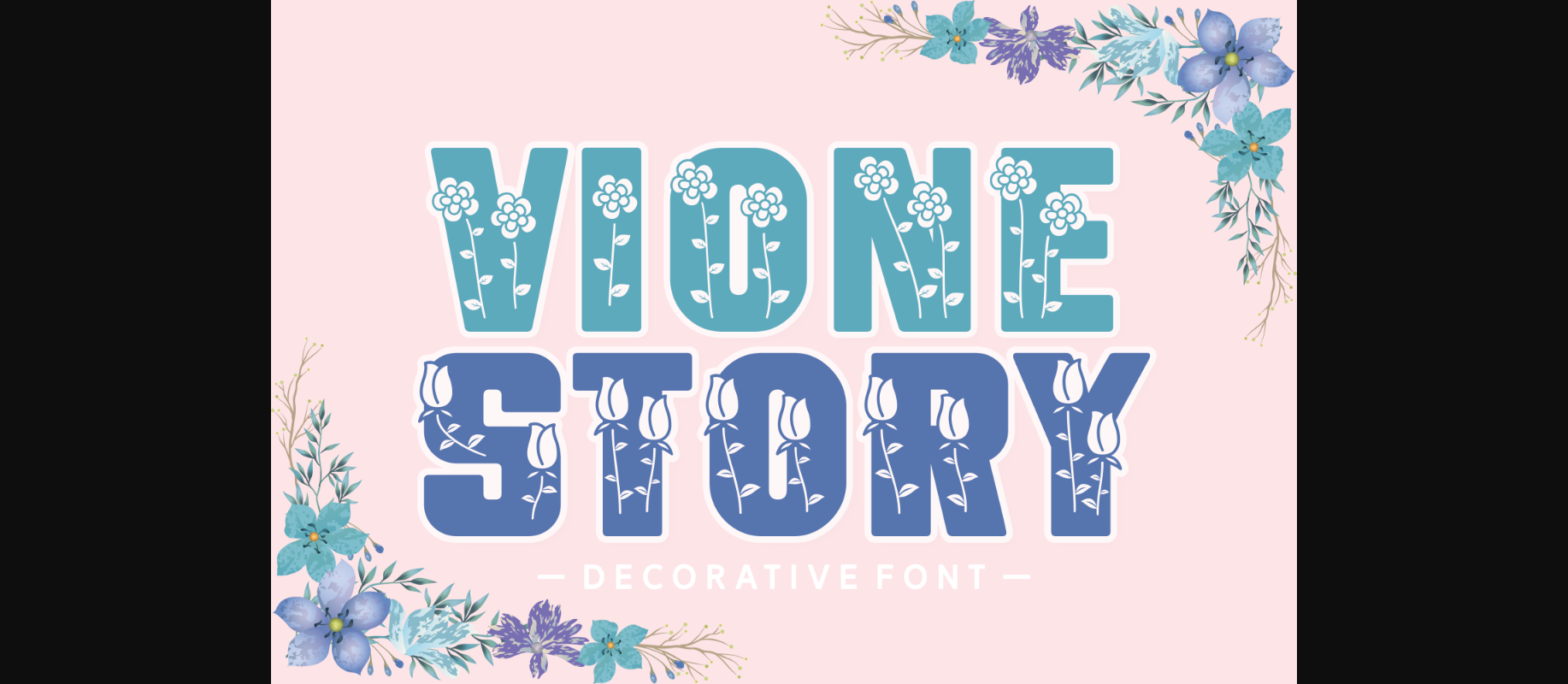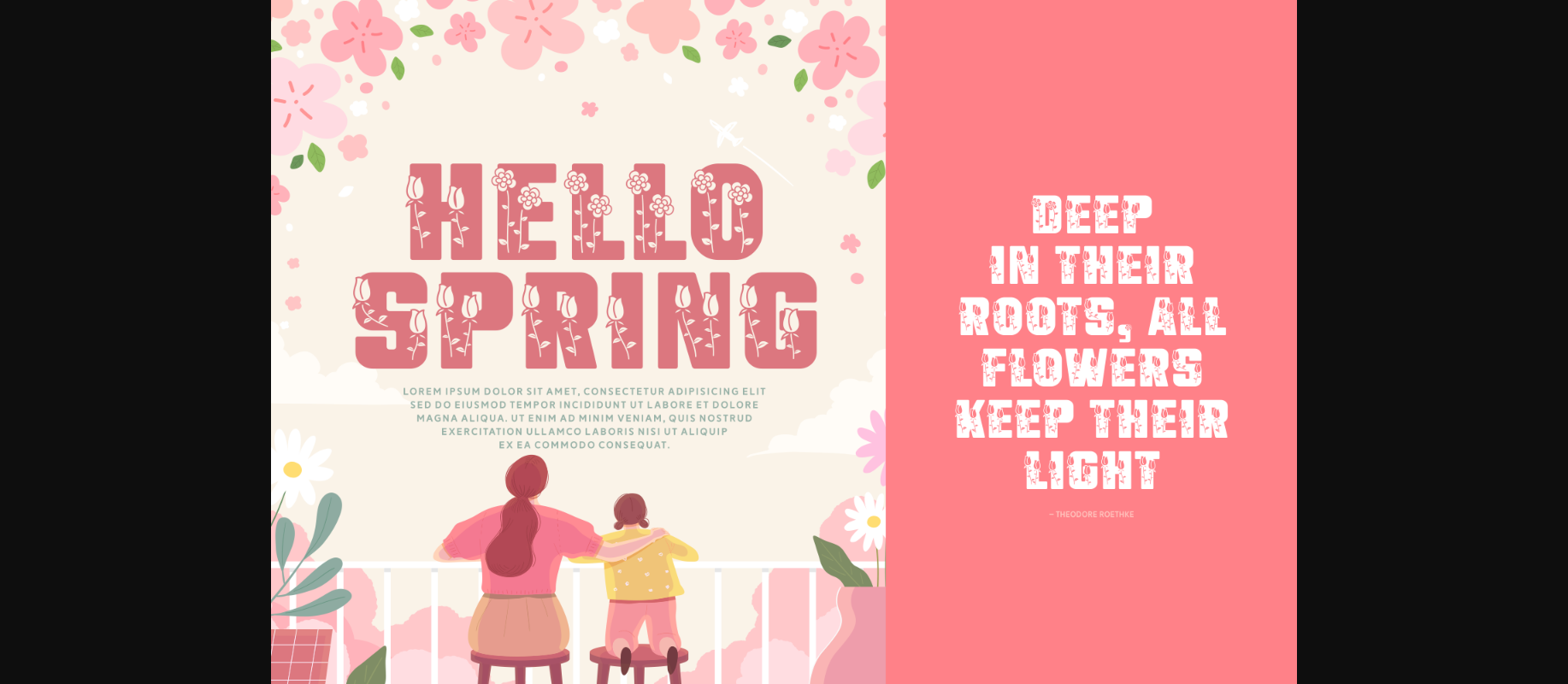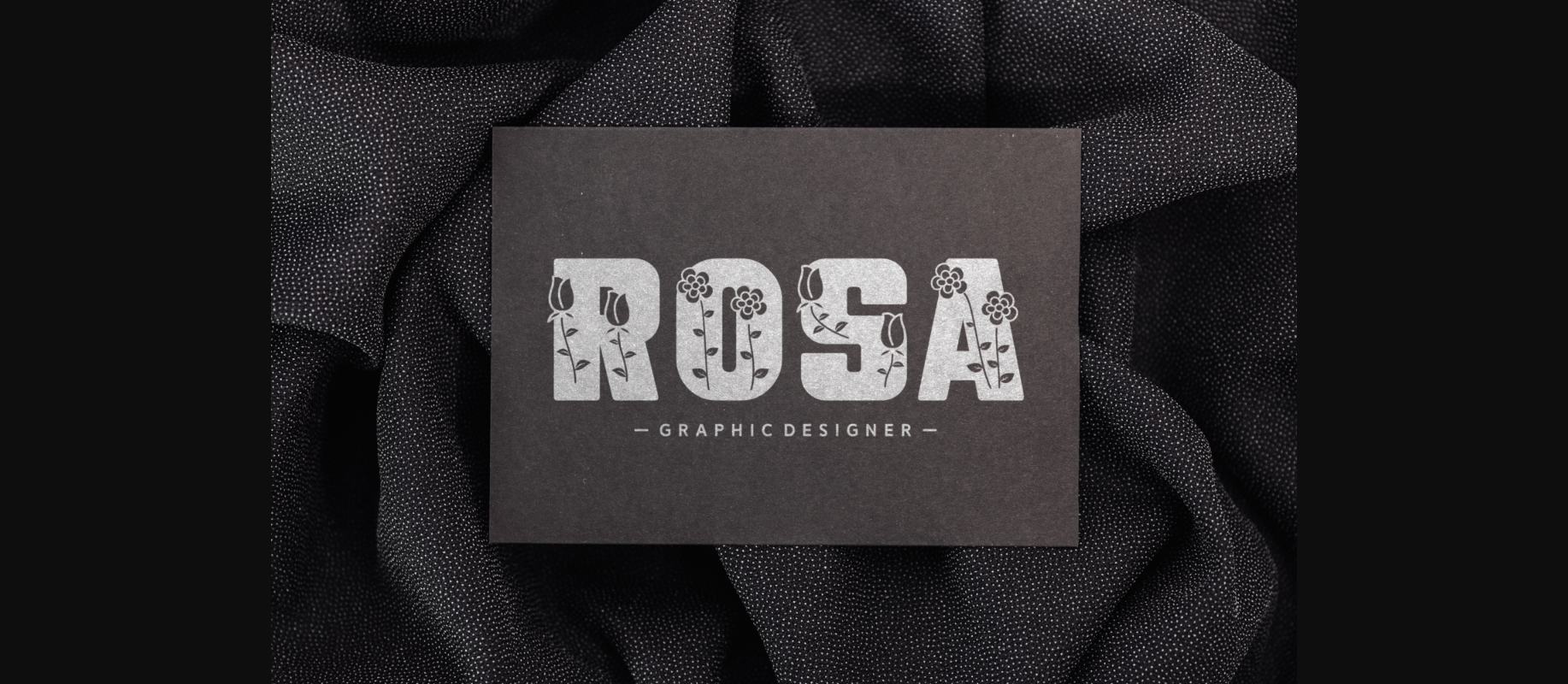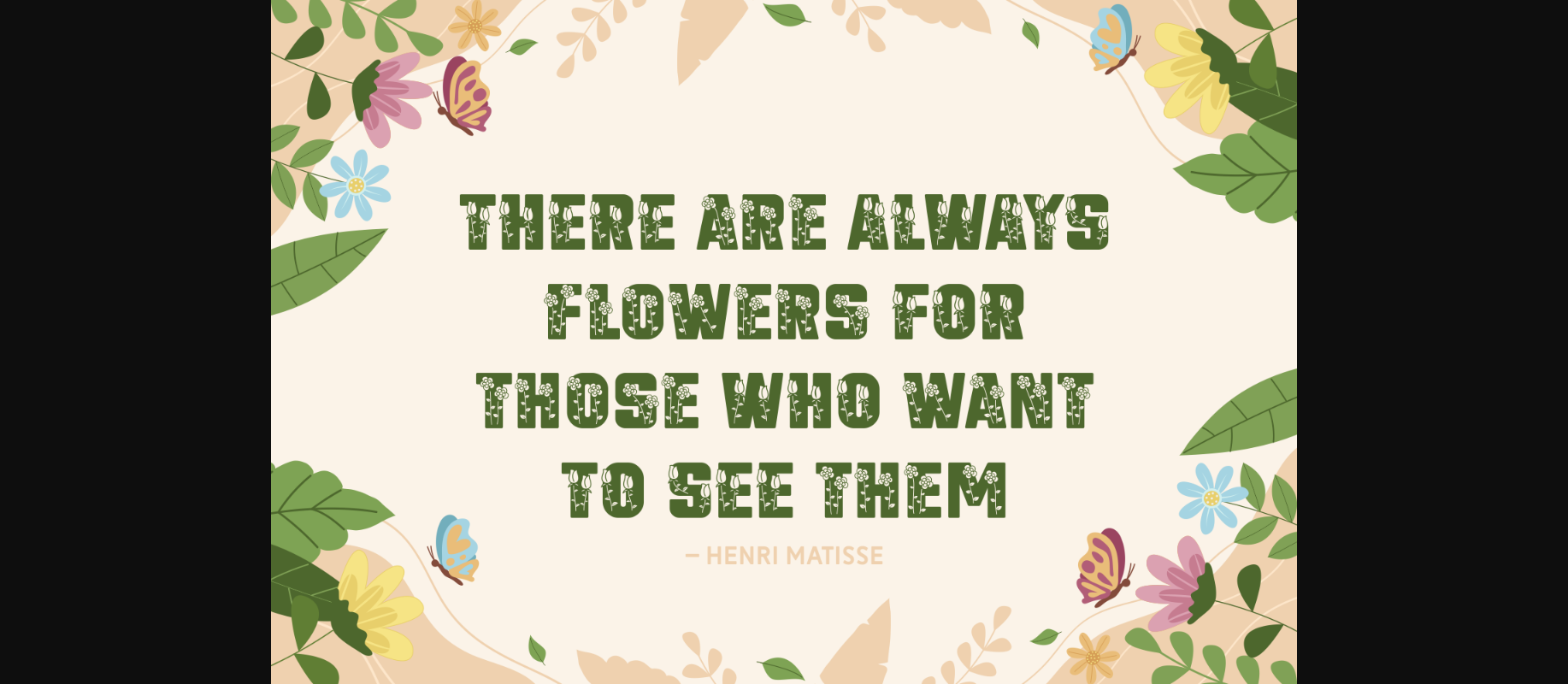
About Vione Story Font
Vione Story is a lovely and romantic decorative font that features tiny flowers delicately woven into the letters. With its intricate details and charming style, this font is perfect for adding a touch of whimsy and beauty to any design. Let your creativity blossom with Vione Story and create truly enchanting designs.